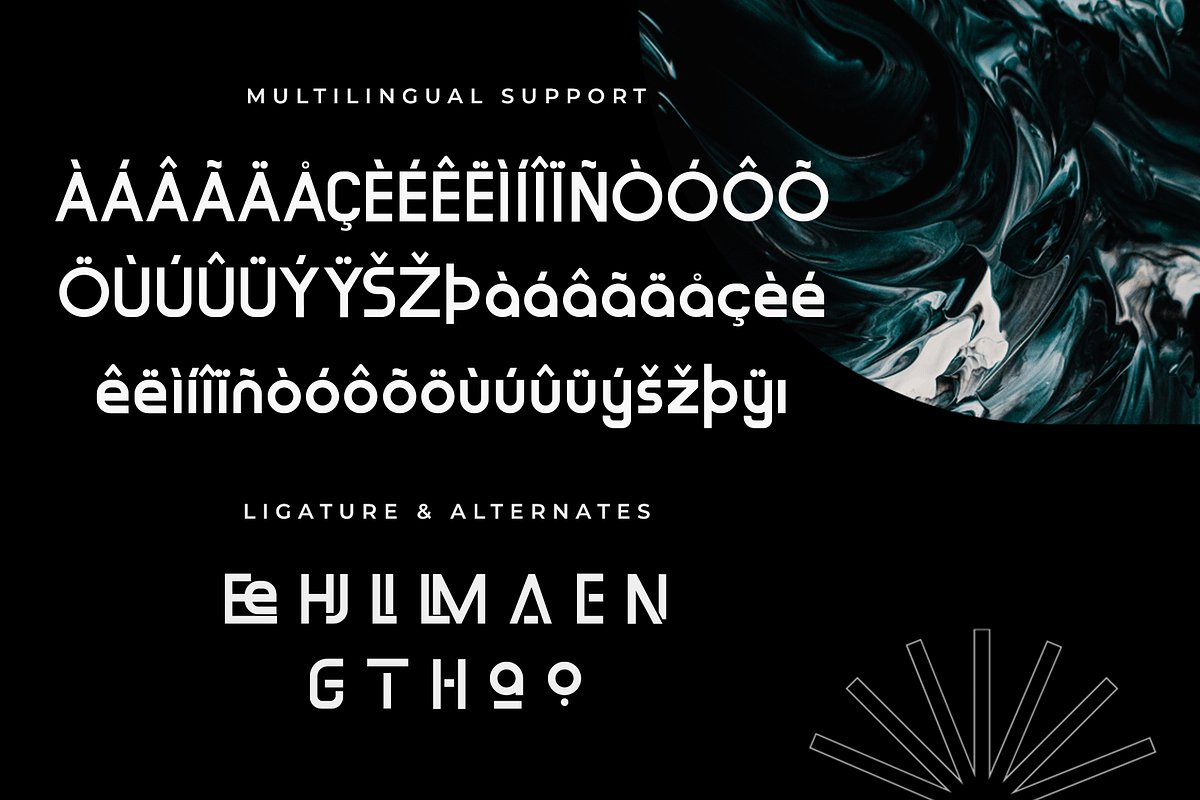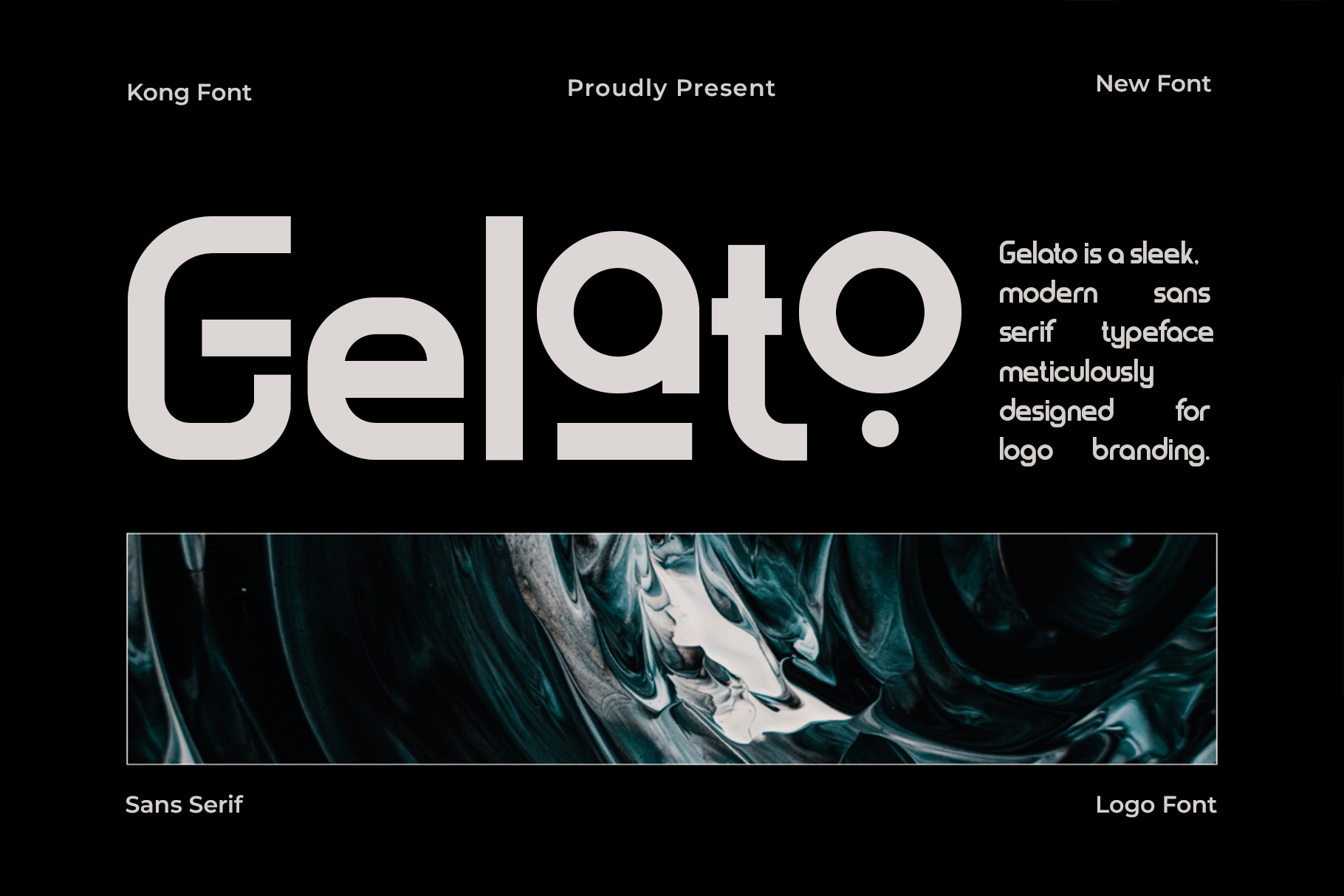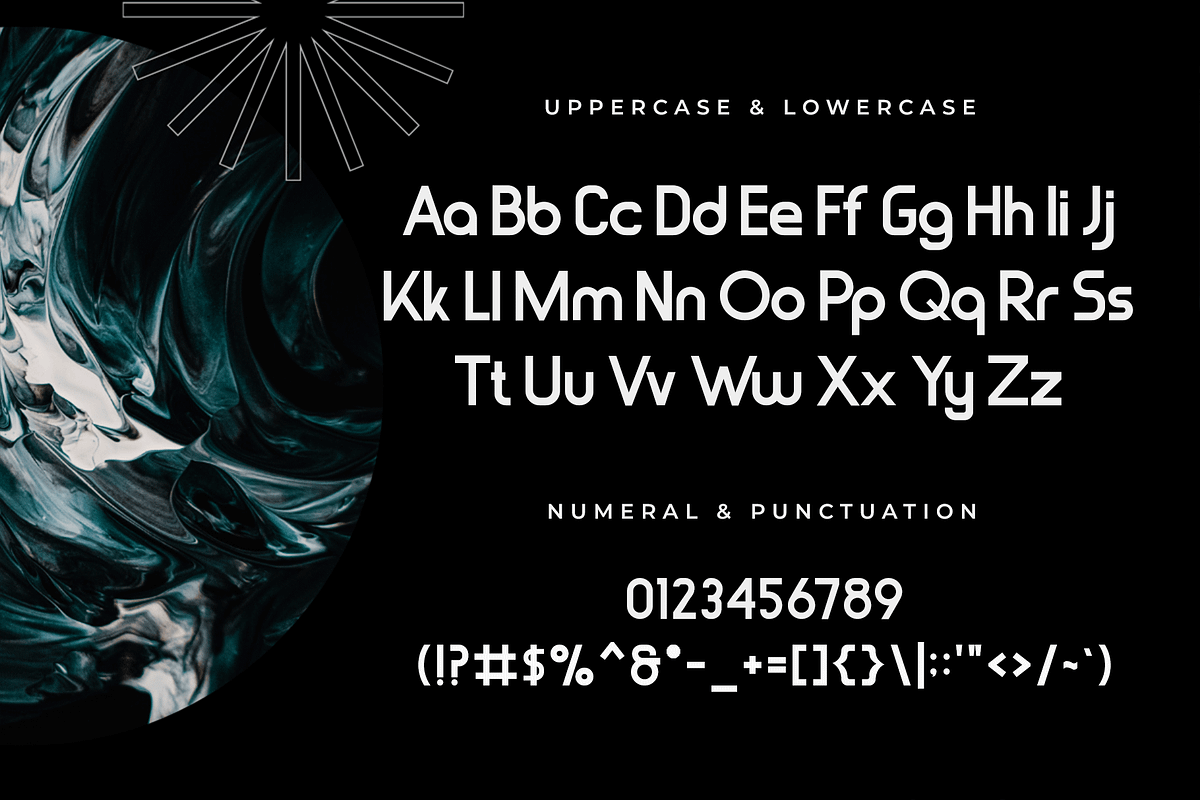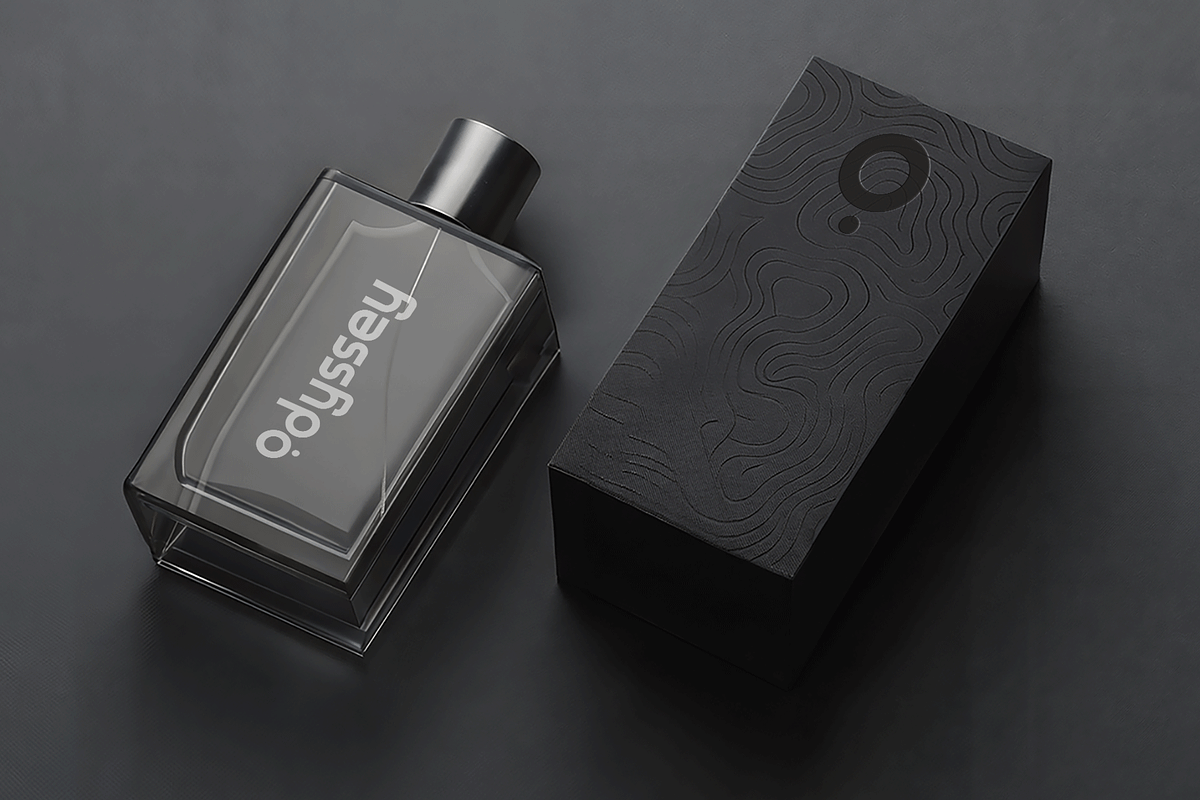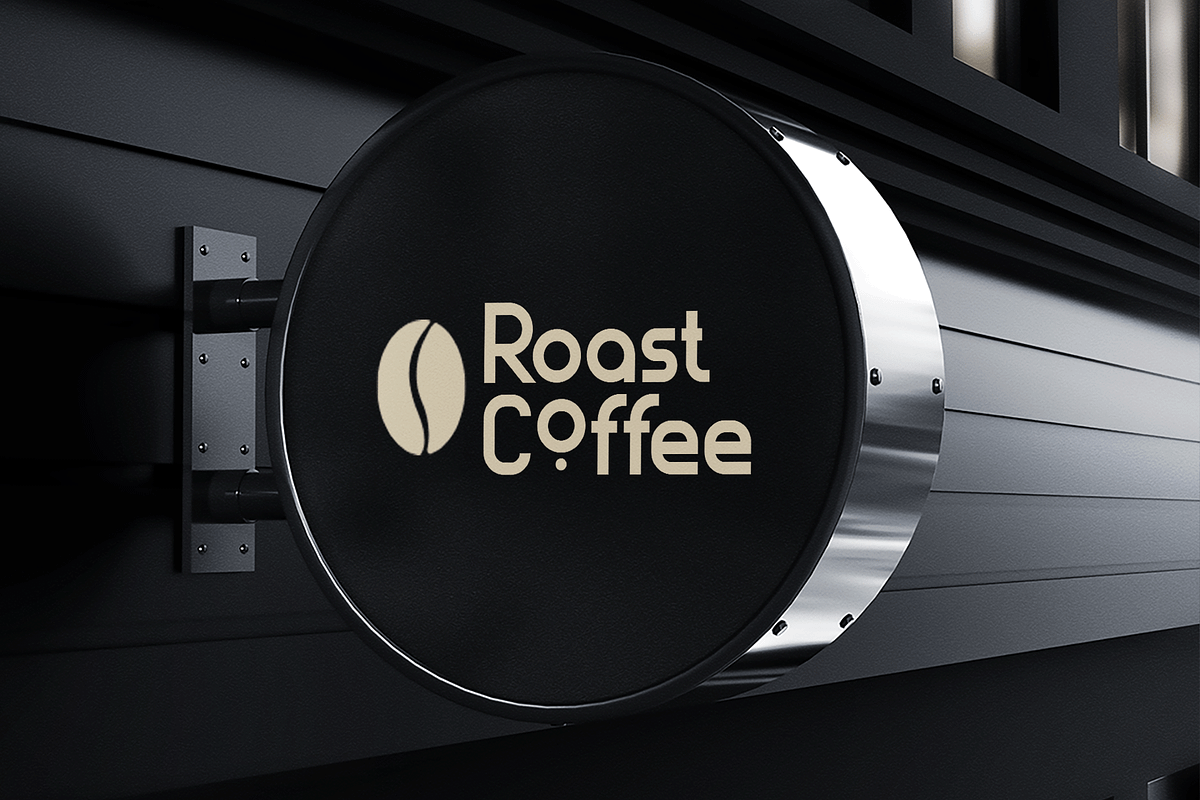
Gelato – A Modern Sans Serif Font
Gelato is a modern sans serif font that blends elegance with contemporary simplicity. Inspired by the smooth curves and delightful essence of its namesake, this typeface brings a fresh, clean, and sophisticated touch to any design.
Perfect for branding, packaging, editorial layouts, and digital designs, Gelato features well-balanced letterforms that ensure high readability and visual appeal. Whether you're designing a chic fashion brand, a minimalist website, or a stylish advertisement, this font delivers versatility and charm.
With uppercase and lowercase letters, numerals, punctuation, and multilingual support, Gelato is the perfect choice for designers who want a modern yet inviting font for their creative projects.